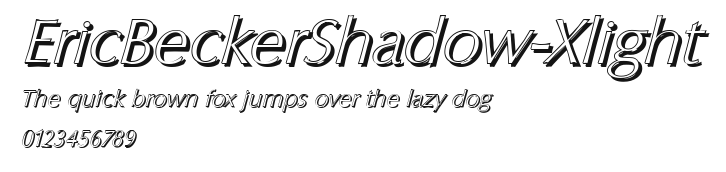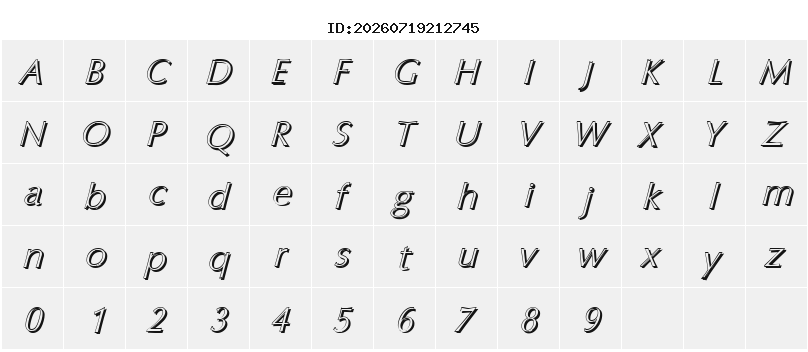
• Font Name: EricBeckerShadow-Xlight
• Full Font Name: EricBeckerShadow-Xlight-Italic
EricBeckerShadow-Xlight.ttf is a modern, elegant sans-serif font designed for ultimate readability and visual harmony. Perfect for branding, headlines, web design, and print materials.